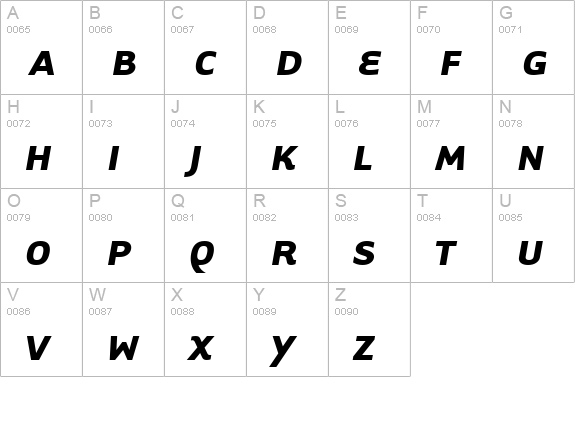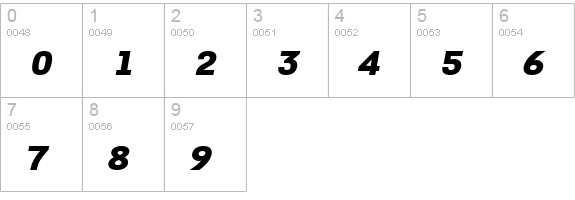
TarzanaWide Bold Italic Font Details
TarzanaWide Bold Italic is a strong, high-contrast, italic variant in the TarzanaWide typeface family \xE2\x80\x94 well suited to headlines, attention-grabbing titles, and strong calls-to-action.
TarzanaWide Bold Italic font is a striking and eye-catching typeface that commands attention with its bold and italic design. Its unique combination of thick strokes and slanted characters give it a strong and confident appearance, making it perfect for headlines, titles, and emphasis. This font exudes a sense of power and elegance, effortlessly conveying a bold and assertive message. Its wide letterforms add a touch of modernity and make it easy to read even at smaller sizes. The TarzanaWide Bold Italic font is not only visually appealing but also versatile. It can be used in various design projects, such as logos, posters, banners, and packaging. Its bold and italic characteristics make it ideal for creating a sense of drama and impact in any design. One of the best features of TarzanaWide Bold Italic font is that it is freely available to download at FontsMarket.com. This means that you can easily access this fantastic font without any cost. Whether you are a professional designer or a hobbyist, you can enjoy the benefits of this font for free. So, if you are looking for a font that combines boldness, elegance, and versatility, TarzanaWide Bold Italic font is the perfect choice. Download it today from FontsMarket.com and elevate your design projects to a whole new level.